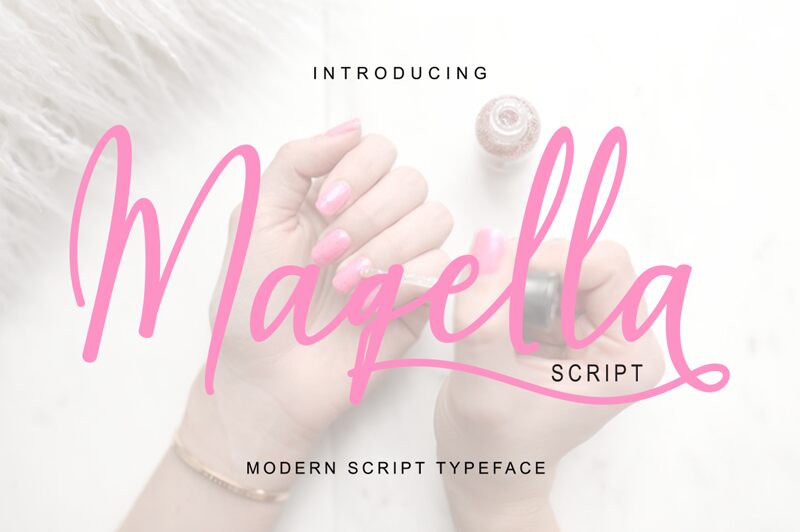
Magella Script, a modern handwritten font designed by Fajri Adi of Bexxtype, captivates with its elegant flow and refined sophistication. This alluring typeface exudes a sense of effortless grace, its fluid strokes seamlessly blending to create a mesmerizing visual experience. The Magella Script's delicate balance of organic movement and precise letterforms evokes a timeless, yet distinctly contemporary aesthetic, making it a versatile choice for a wide range of design applications.
The Magella Script's versatility shines through, lending itself beautifully to branding, editorial, and packaging design. Its calligraphic essence effortlessly elevates any project, from high-end fashion lookbooks to artisanal product labels, imbuing them with a touch of timeless charm and refined sophistication. Whether used for eye-catching headlines, captivating logotypes, or impactful textual elements, the Magella Script's distinctive personality is sure to leave a lasting impression.
Maqella Script
Fajri Adi